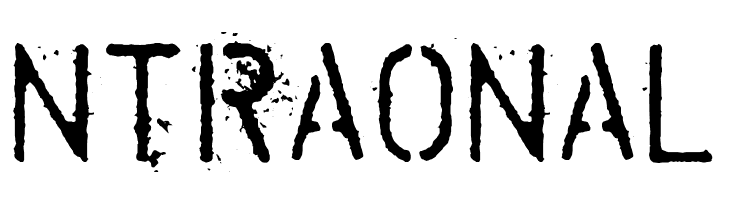
La Maison Brush Demo Version Font
- Font: La Maison Brush Demo Version
( Fonts by Mr Fisk - Mike Larsson - fontorama.net )
A distressed, grunge-style font with a vintage, textured appearance.